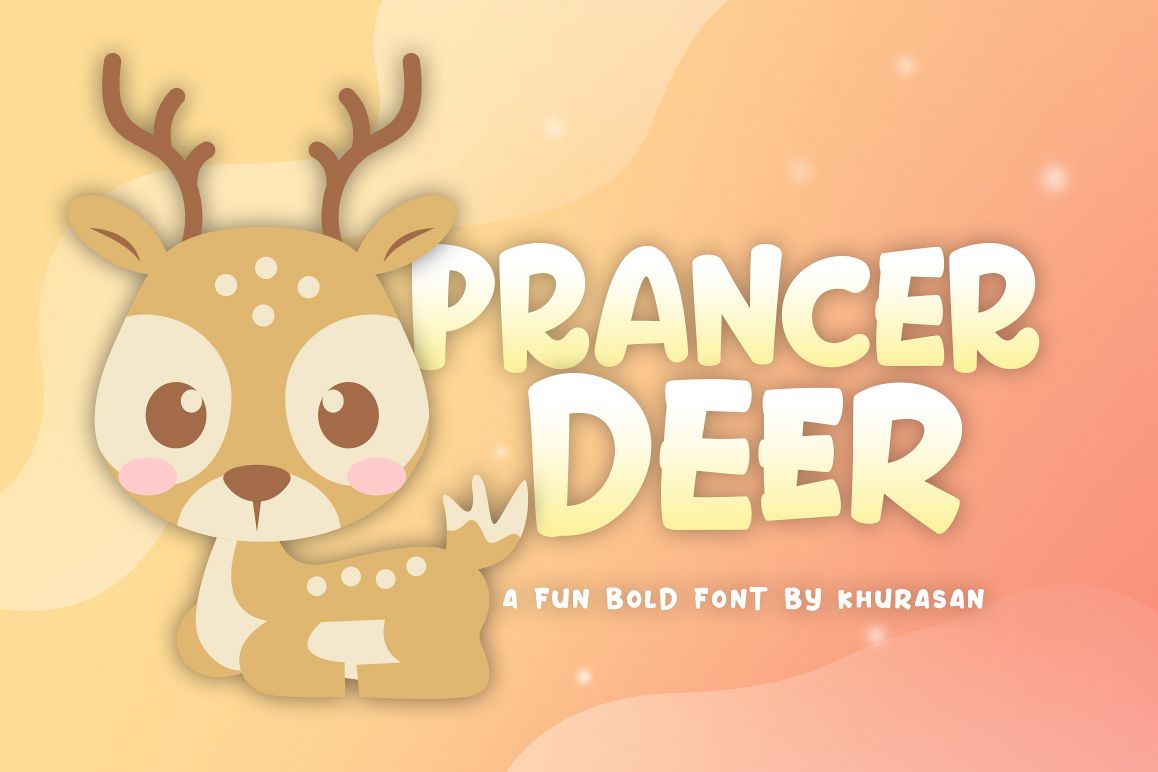
Prancer Deer
Introducing, Prancer Deer font a fun bold display typeface with cheerful theme for your fun project. Prancer Deer font suitable for logo, branding, greeting card, poster and any design that you create.